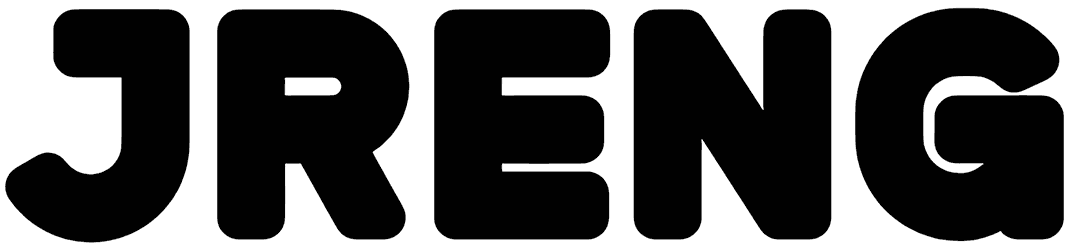
If you are searching for a font to design your next project as an old-style plan, what do you think about Jreng? This eroded font has bold and modest letterforms but possesses three different versions. Even without lowercase support, Jreng represents an interesting face for many projects, such as flyers, logos, covers, and much more.